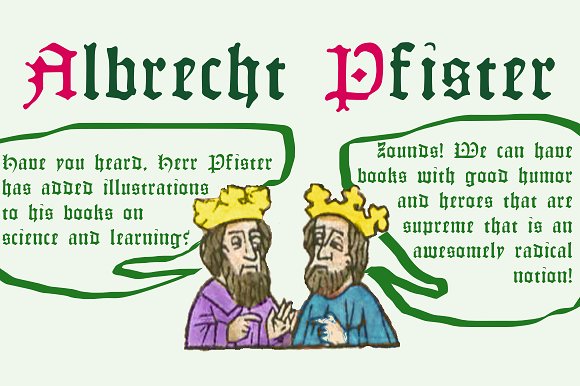
Albrecht Pfister Font
About Albrecht Pfister Font
Herr Pfister was a printer in the city of Bamberg Bavaria. He is known to have published nine works. And it has been contentiously argued that he printed the “36 line Bible.”
He was responsible for two innovations. The first was printing in his native German language and the second was the use of woodblock prints to add illustrations to the text.
These were both first with the use of movable type. He was heavily influenced by Gutenberg’s typefaces but there are a range of notable and also subtle differences between the two men’s output. He was known to be active in the industry from about 1460 to his death in 1466. This font was specifically based on his “Biblia Paperum.”